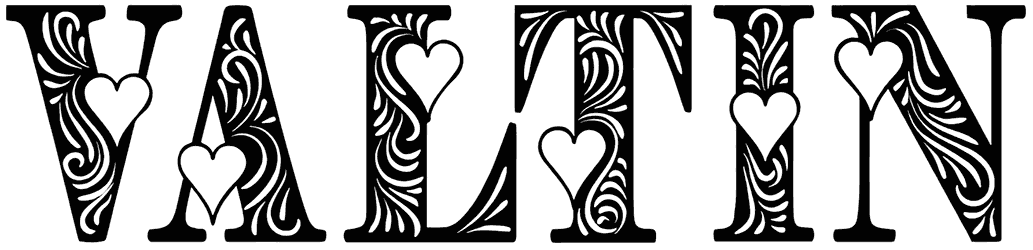
Valtin Font
Valtin is a holiday font that feels incredibly flowing and elegant, thus it would look really perfect on a wide range of graphic content such as posters, wedding invitations, product packaging, and applications.
If creating a sense of love, romance, drama, and dynamic really matters to you, it is better to overlook the lack of lowercase letters, numbers, or punctuation and try this heart font in your artwork.